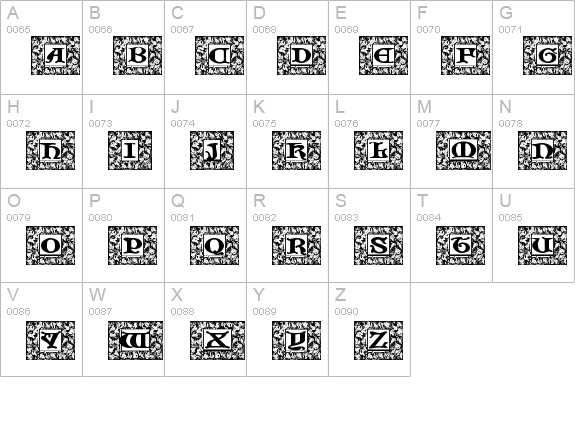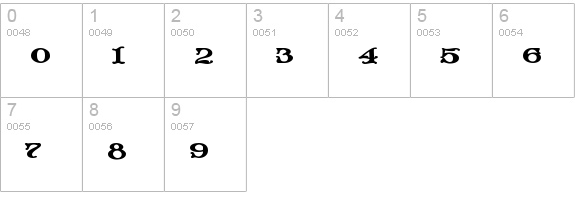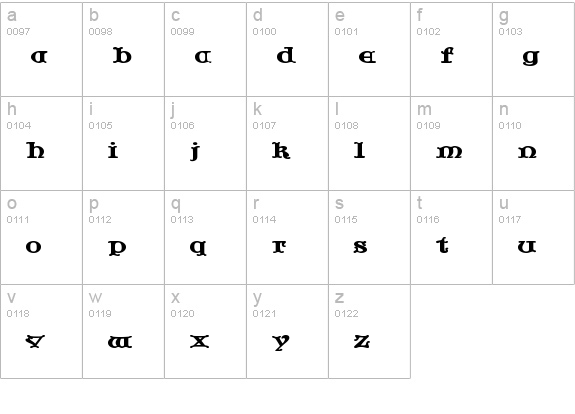
JF Cotswold Leaves Font Details
JF Cotswold Leaves font is a stunning and elegant typeface that effortlessly captures the essence of nature. Its delicate and intricate leaf motifs gracefully intertwine with each letter, creating a visually captivating display. The beautifully crafted details of this font make it ideal for a wide range of creative projects, including invitations, branding materials, packaging designs, and more. What sets JF Cotswold Leaves font apart is not only its remarkable design but also its accessibility. This font is available for free, allowing designers and typographers to elevate their work without any financial constraints. By offering this font free of charge, JF Cotswold Leaves font empowers creators from all backgrounds to bring their visions to life. To access this remarkable typeface, simply visit FontsMarket.com, where JF Cotswold Leaves font is freely available for download. With just a few clicks, you can add this exquisite font to your collection and unleash its creative potential. Whether you're a seasoned designer or just starting your journey, JF Cotswold Leaves font is a must-have resource that will undoubtedly elevate your projects to new heights. Get ready to embrace the beauty of nature and make a lasting impression with JF Cotswold Leaves font. Download it today from FontsMarket.com and let your creativity flourish.